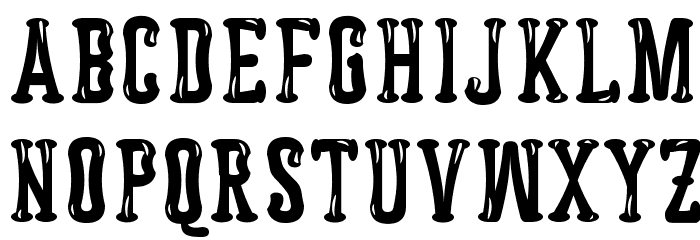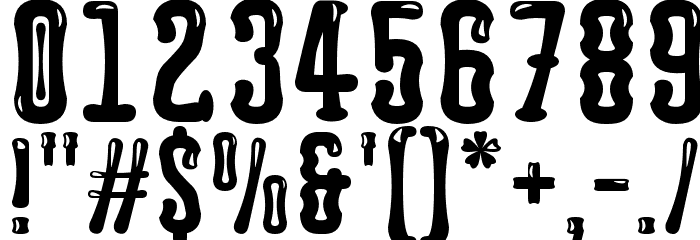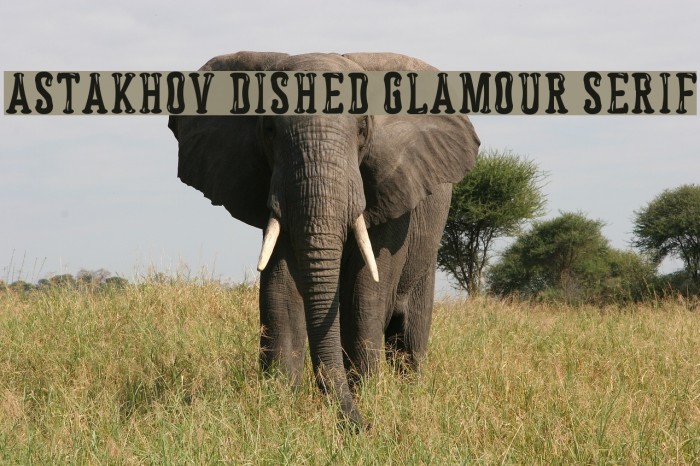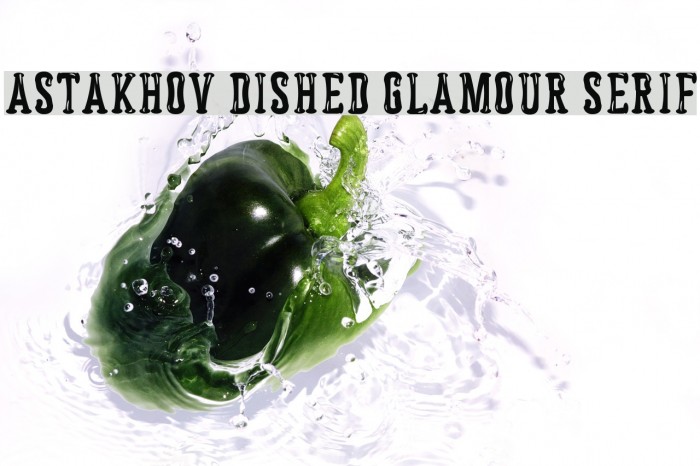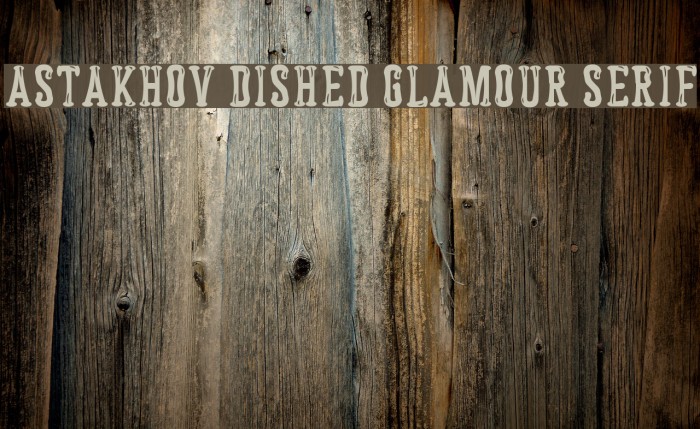
Astakhov Dished Glamour Serif Font
This font features a bold and dramatic serif style with unique, exaggerated curves and flares that give it a glamorous and eye-catching appearance. The characters are designed with high contrast between thick and thin strokes, adding to the overall elegance and sophistication. The uppercase and lowercase letters maintain a consistent style, while the numerals and special characters complement the alphabet with their distinctive flair. This font's artistic and decorative nature makes it suitable for projects that require a touch of luxury and style.
A bold, high-contrast serif font with dramatic curves and flares.
- Proposed Projects: Ideal for luxury branding, fashion magazines, event invitations, and high-end product packaging.